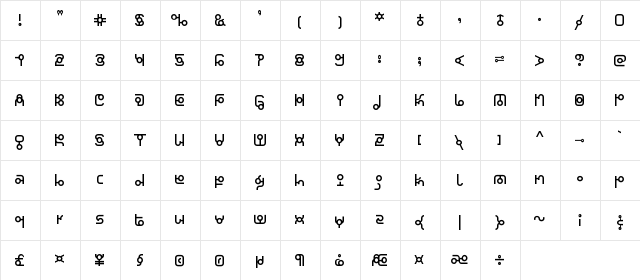
Thaiana Jones Regular
Design Context for Thaiana Jones
Thaiana Jones is a composed and adaptable typeface that performs quietly and consistently across a wide range of design contexts.
Pro Tip: Use Thaiana Jones in both headline and body roles to test its range before committing to a single application.